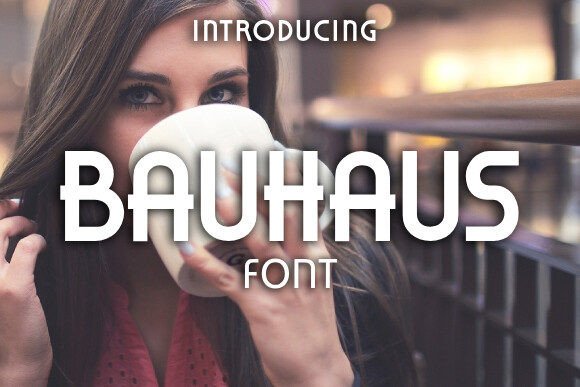
In the world of typography, few fonts are as instantly recognizable — or as timeless — as the Bauhaus Font. With its clean geometric lines and minimalist curves, Bauhaus isn’t just a typeface; it’s a design statement rooted in one of the most influential art movements of the 20th century.
Whether you’re designing modern t-shirts, mugs, posters, or branding projects, Bauhaus adds a sense of modernism, clarity, and style that has captivated designers for decades.
What Makes Bauhaus Font Unique?
🛠 Inspired by the Bauhaus Movement
The Bauhaus design school, founded in Germany in 1919, revolutionized modern art, architecture, and design. The typeface reflects its philosophy of simplicity, function, and geometric beauty.
⚪ Geometric Letterforms
Bauhaus Font is built from circles, lines, and rectangles, creating a balanced and futuristic look.
🖋 Minimalist & Modern
Its clean style makes it ideal for sleek, contemporary designs — yet it still feels retro thanks to its 1920s origins.
🧩 Versatile Style
Works across fashion, product design, branding, and digital art — from high-tech logos to minimalist posters.
💡 Instant Recognition
Even non-designers often recognize Bauhaus Font thanks to its rounded forms and stylish, modernist appeal.
History of Bauhaus Font
Although often used to describe a range of geometric sans-serifs, the specific Bauhaus Font most designers know is based on the “Universal Alphabet” developed by Herbert Bayer in the 1920s.
Bayer’s goal? Remove unnecessary decoration and design a typeface that was purely functional, built from simple geometric shapes. This minimalist approach gave birth to a design classic still admired nearly a century later.
The Bauhaus Font you see today in design software or font sites is typically a modern revival inspired by Bayer’s concept.
Best Uses for Bauhaus Font
Thanks to its clean geometry, Bauhaus works beautifully in:
✅ T-shirts & Apparel – Add a modern, retro, or minimalist vibe to slogans and logos.
✅ Mugs & Merchandise – Perfect for short words or artistic quotes.
✅ Posters & Flyers – Music events, art shows, and creative workshops.
✅ Branding & Logos – Especially for architecture firms, design studios, or tech companies.
✅ Website Headers & UI Design – Titles, banners, or large headings.
✅ Packaging & Labels – Modern cosmetics, gadgets, or lifestyle products.
Tips for Designing with Bauhaus Font
🎨 Use Large Sizes: Bauhaus’s rounded forms look best in headlines or short text.
🔠 Combine with Contrast: Pair with a slim sans-serif or a lightweight serif for body text.
🌈 Try Solid Colors: Flat, bold colors highlight the geometric nature.
📐 Space it Out: Adjust letter spacing (tracking) for a clean, balanced look.
🖌 Go Minimal: Bauhaus works beautifully in minimalist designs with lots of white space.
Creative Ideas to Try
✨ Retro Posters: Channel the 1920s–30s modernist vibe with simple layouts and bold colors.
☕ Custom Mugs: Add a single word or short phrase in Bauhaus Font for a stylish gift.
📱 Instagram Highlights Covers: Use geometric shapes and this font for a sleek profile.
🎥 YouTube Branding: Titles and end screens that feel modern yet timeless.
🎁 Product Labels: Clean, rounded text stands out on packaging for cosmetics, candles, or design accessories.
Why Designers Still Love Bauhaus Font
A century later, Bauhaus Font remains popular because:
🧠 It’s Functional & Beautiful: True to Bauhaus philosophy: “Form follows function.”
🕰 Timeless Modernism: Looks retro and futuristic at the same time.
🔠 Easy to Read: Simple shapes create excellent legibility, especially in titles.
Q5: What does it feel like?
Modern, minimalist, geometric, slightly retro, and timeless.
Final Thoughts: Timeless Geometry for Modern Design
The Bauhaus Font isn’t just a typeface — it’s a celebration of design history. Its geometric beauty and minimalist style make it perfect for creative projects that want to look modern, stylish, and professional.